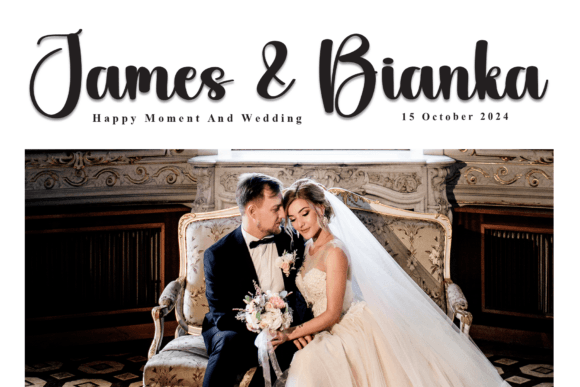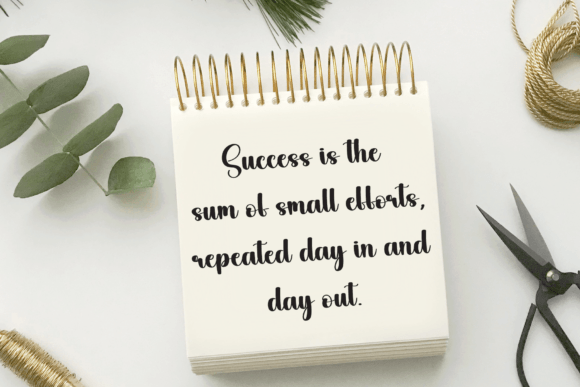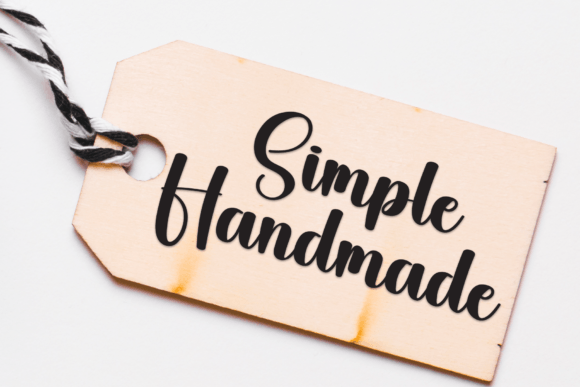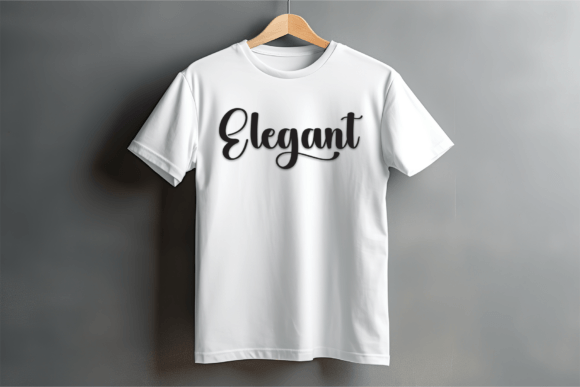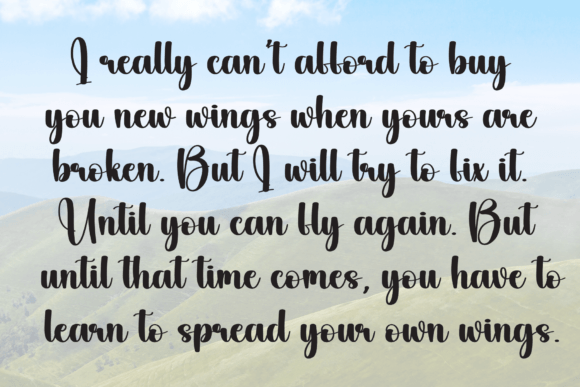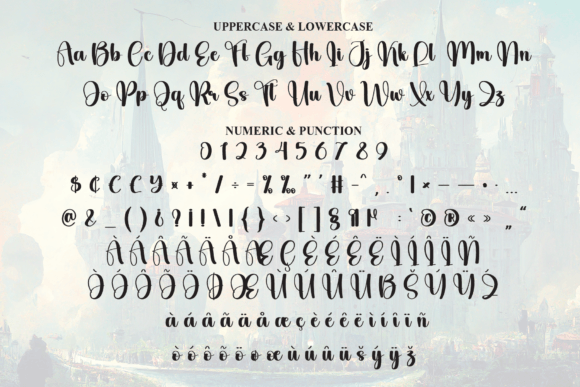
Introducing Fairytale Font: Add a Touch of Magic to Your Designs
Are you looking for a font that can add a dash of whimsy and fantasy to your designs? Look no further than Fairytale Font, a bold script font with a playful and enchanting style. With its flowing letters and elegant curves, Fairytale Font is perfect for creating fun and magical designs that will transport your audience to a world of wonder.
What is Fairytale Font?
Fairytale Font is a bold script font that is designed to evoke a sense of fantasy and adventure. Its unique and playful style makes it perfect for a wide range of design projects, from children’s books and party invitations to branding and advertising materials. With its flowing letters and whimsical curves, Fairytale Font is sure to add a touch of magic to any project.
Key Features of Fairytale Font
- Bold and Playful Style: Fairytale Font has a bold and playful style that is perfect for creating fun and eye-catching designs.
- Flowing Letters: The font features flowing letters that are connected by elegant curves, creating a sense of movement and fluidity.
- Whimsical Curves: Fairytale Font has whimsical curves and swashes that add a touch of fantasy and adventure to any design.
- Highly Versatile: The font is highly versatile and can be used for a wide range of design projects, from print materials to digital media.
Uses of Fairytale Font
Fairytale Font is perfect for a wide range of design projects, including:
- Children’s Books and Storytelling: The font’s playful and whimsical style makes it perfect for children’s books, storytelling, and educational materials.
- Party Invitations and Event Materials: Fairytale Font is ideal for creating fun and festive party invitations, event materials, and decorations.
- Branding and Advertising: The font’s bold and playful style makes it perfect for branding and advertising materials, such as logos, posters, and flyers.
- Digital Media: Fairytale Font can be used for digital media, such as social media graphics, blog posts, and website headers.
Fairytale Font is a bold and playful script font that is perfect for adding a touch of magic to your designs. With its flowing letters and whimsical curves, it’s ideal for a wide range of design projects, from children’s books and party invitations to branding and advertising materials. So why not give Fairytale Font a try and see how it can add a dash of fantasy and adventure to your designs?